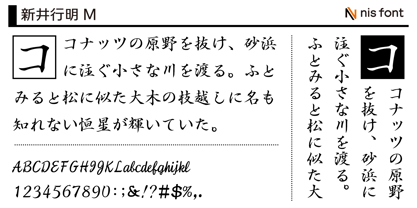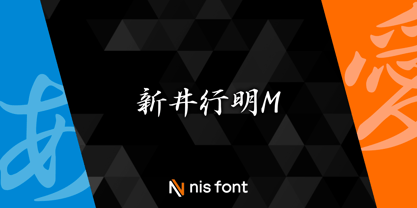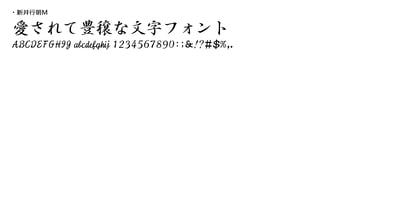
OT-NIS_AGM
by NIS Fonts
The OT-NIS_AGM Font Family was designed by and published by NIS Fonts. OT-NIS_AGM contains 1 styles. More about this family
Brush script fonts generally tend to have thicker horizontal strokes, which can lead to inconsistent grayscale density and a heavier overall impression. This font incorporates the characteristic of thinner horizontal strokes found in Mincho typefaces into a semi-cursive script style. It can also be used as practice characters for copying the Heart Sutra.